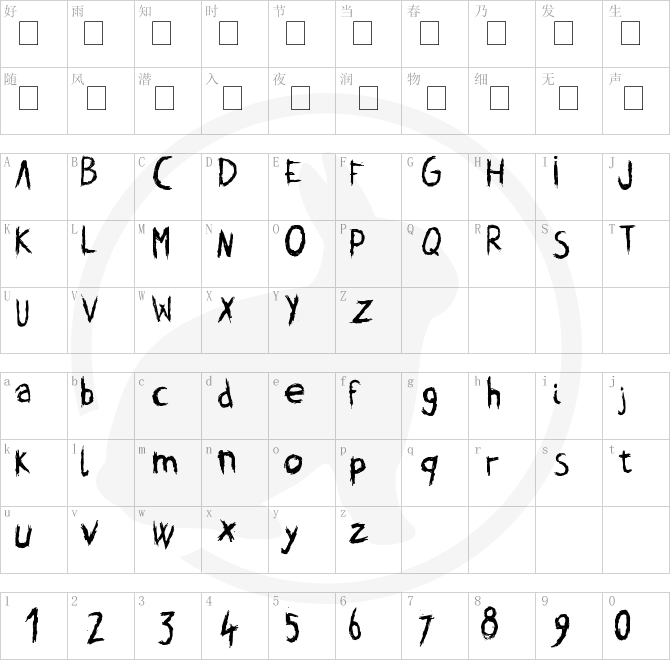
- Font Name:cabanyalZ
cabanyalZ.ttf is a very beautiful artistic font, cabanyalZ.ttf is widely used in the design and printing of various books and pictures,cabanyalZ.ttf has a strong visual impact,cabanyalZ.ttf is a commonly used font in newspapers, magazines and books, and is used in posters, e-commerce Poster design, store design, logo design, font design and other fields.cabanyalZ.